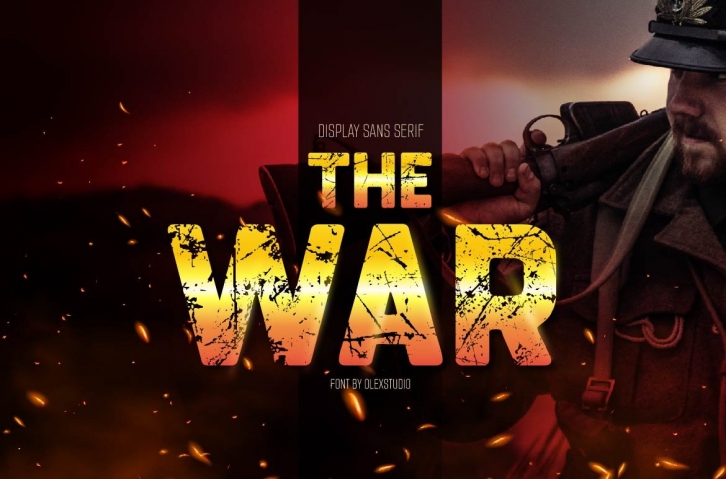
THE WAR - Display font will look gorgeous on all your designs, invitation, poster design, book design, branding materials, logo's, and all project design other.
THE WAR - Display font all character is a Uppercase, includes numbers, punctuation and international glyphs. You will receive OTF, TTF files & WEBFONT.